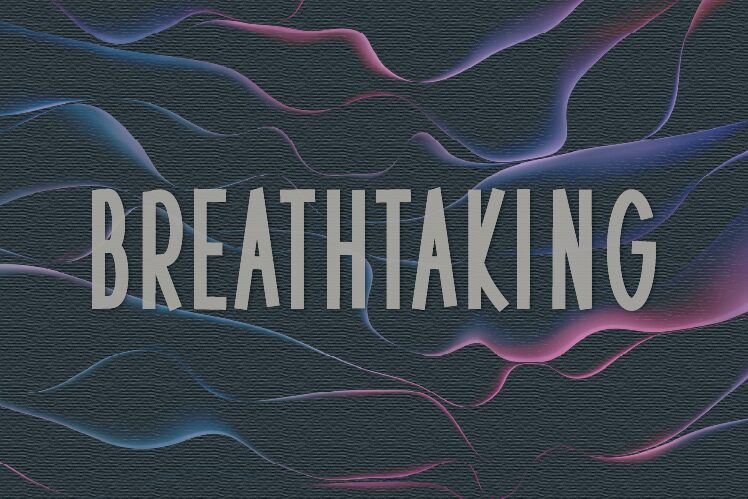
Breathtaking
Breathtaking font by HannaBie Creative Studiona Bie is a free comic display typeface with tall, stretched letters that feel like they’ve been pulled upward in one dramatic swoop. The strokes are bold and inky, with a slightly uneven, hand-drawn wobble that adds energy instead of chaos. It has that cartoon poster vibe—loud, elongated, and full of motion—so even a short word reads like it’s shouting from the page.
Using Breathtaking, your titles instantly grab attention on posters, comic covers, YouTube thumbnails, kids’ event graphics, stickers, and playful branding. This free font shines when it’s big and bold, so let it handle the headlines and pair it with a clean, simple sans serif for smaller text. Keep colors bright and high contrast, and Breathtaking will do the rest of the talking.